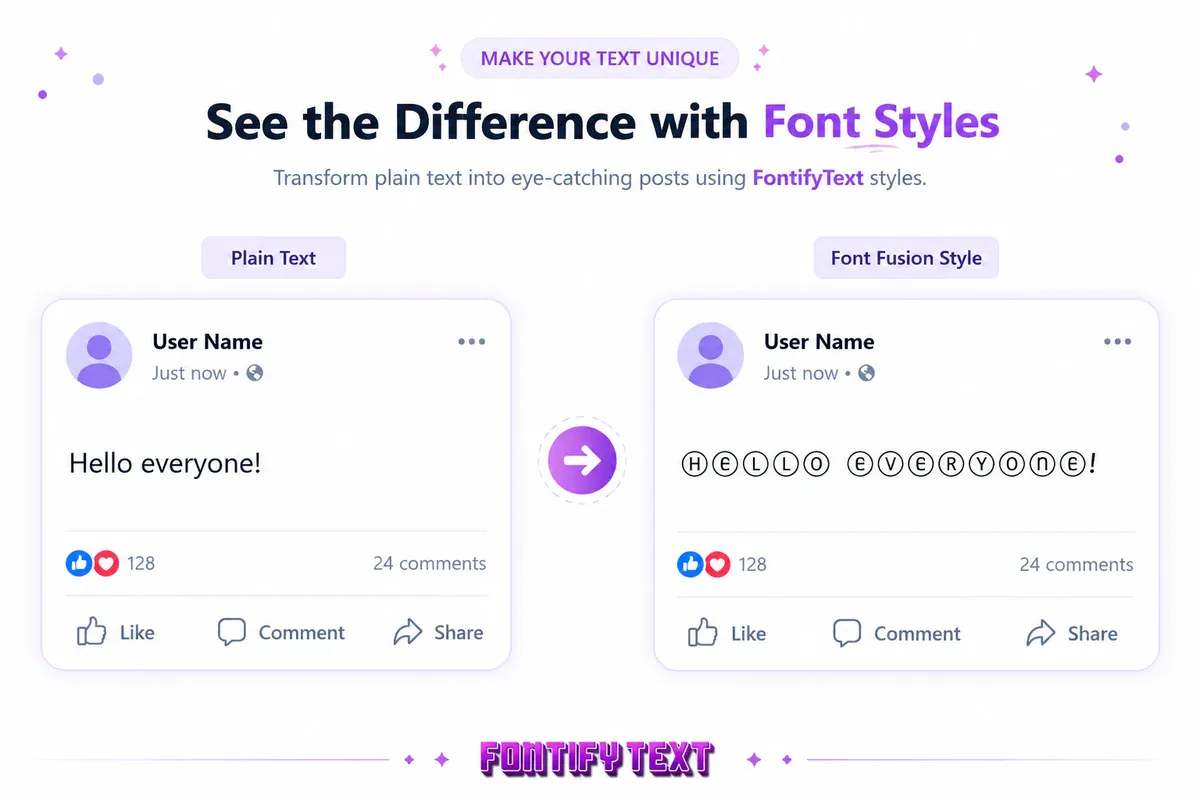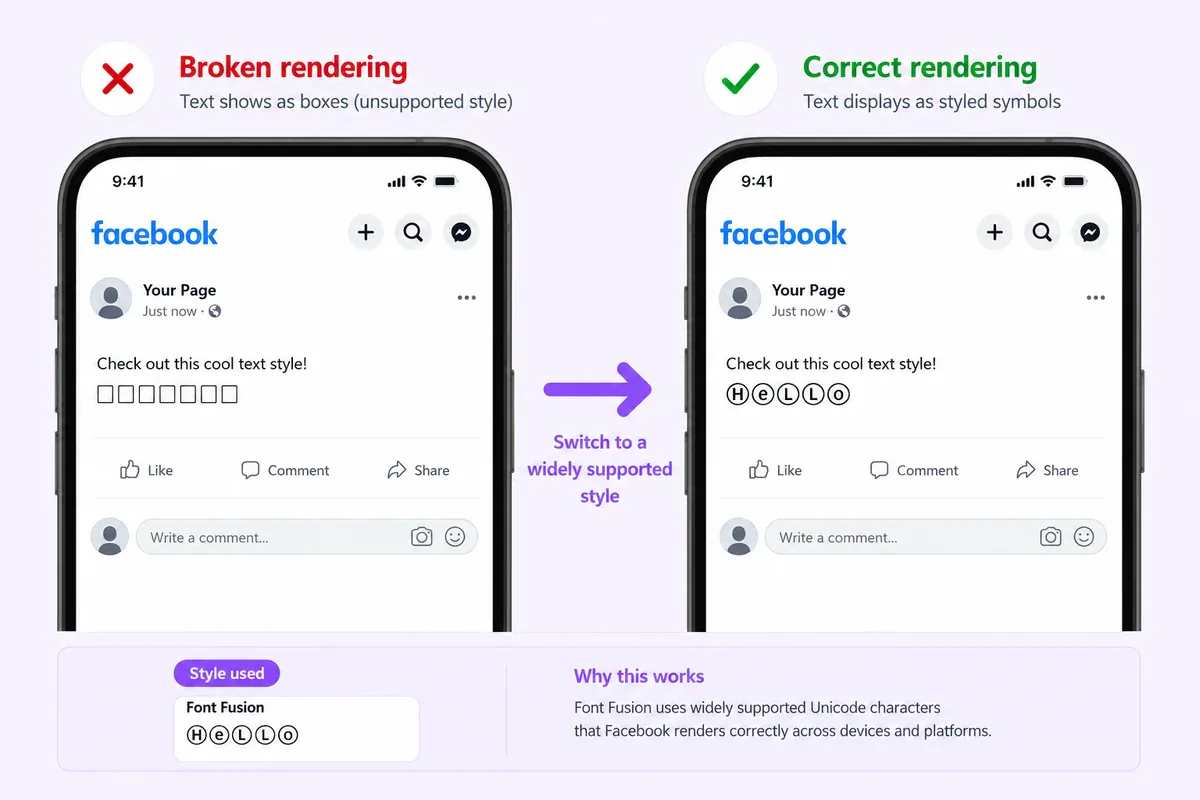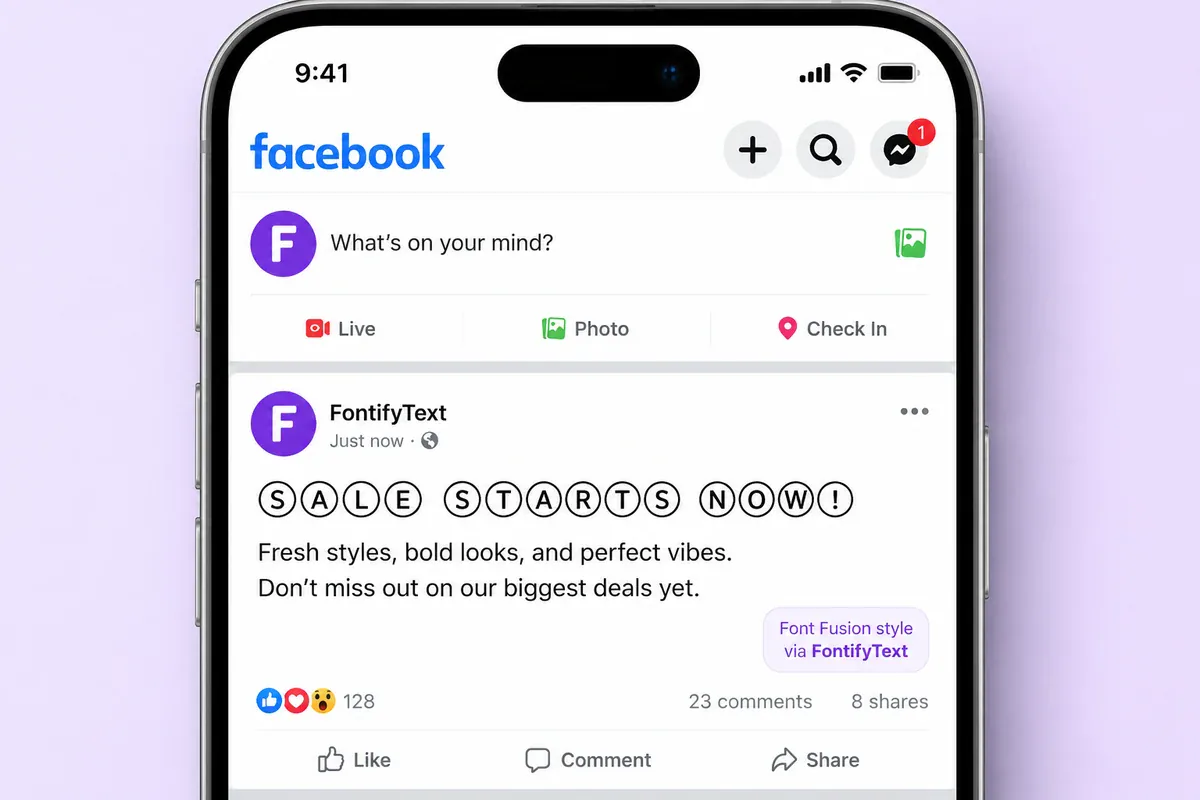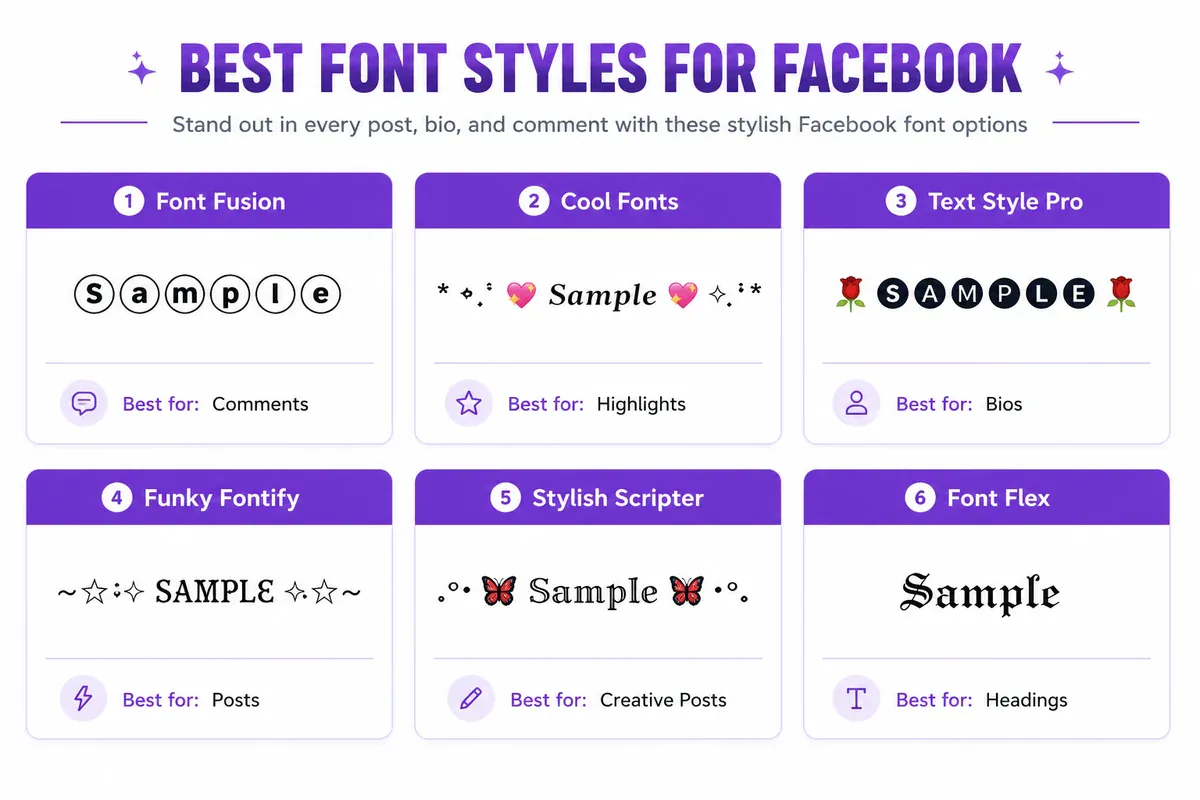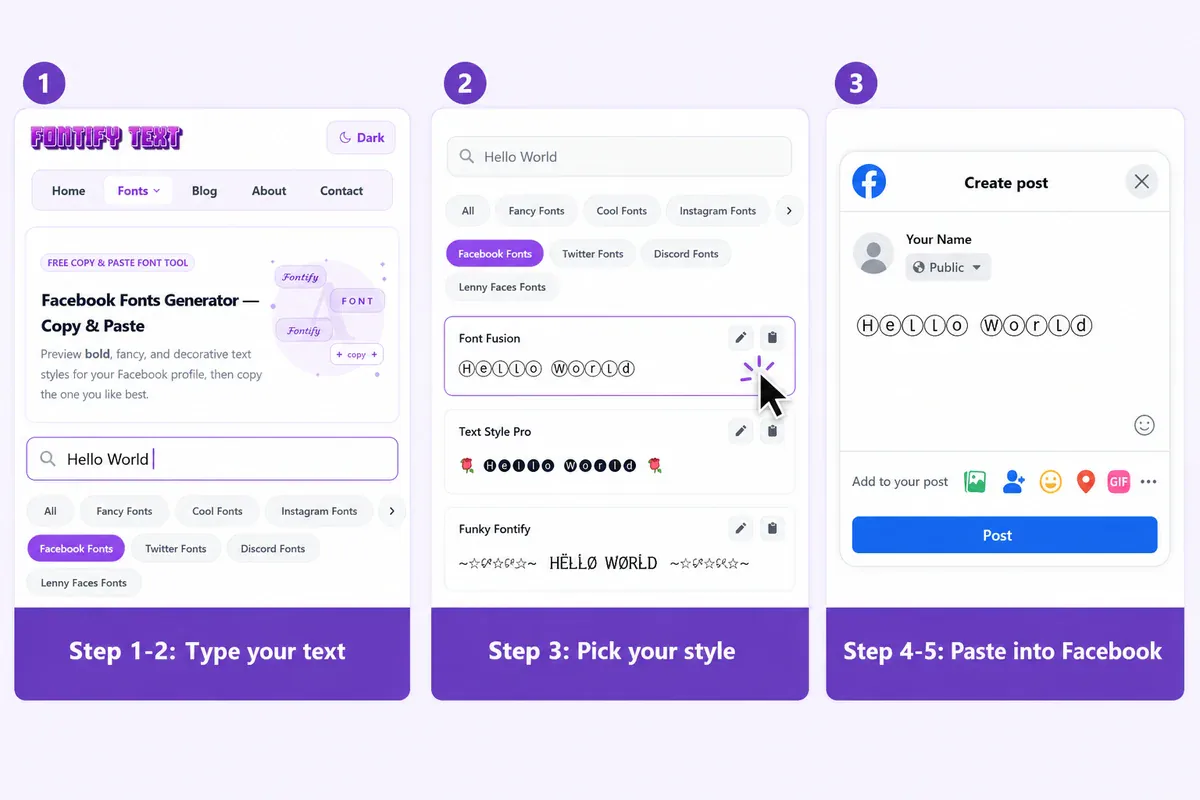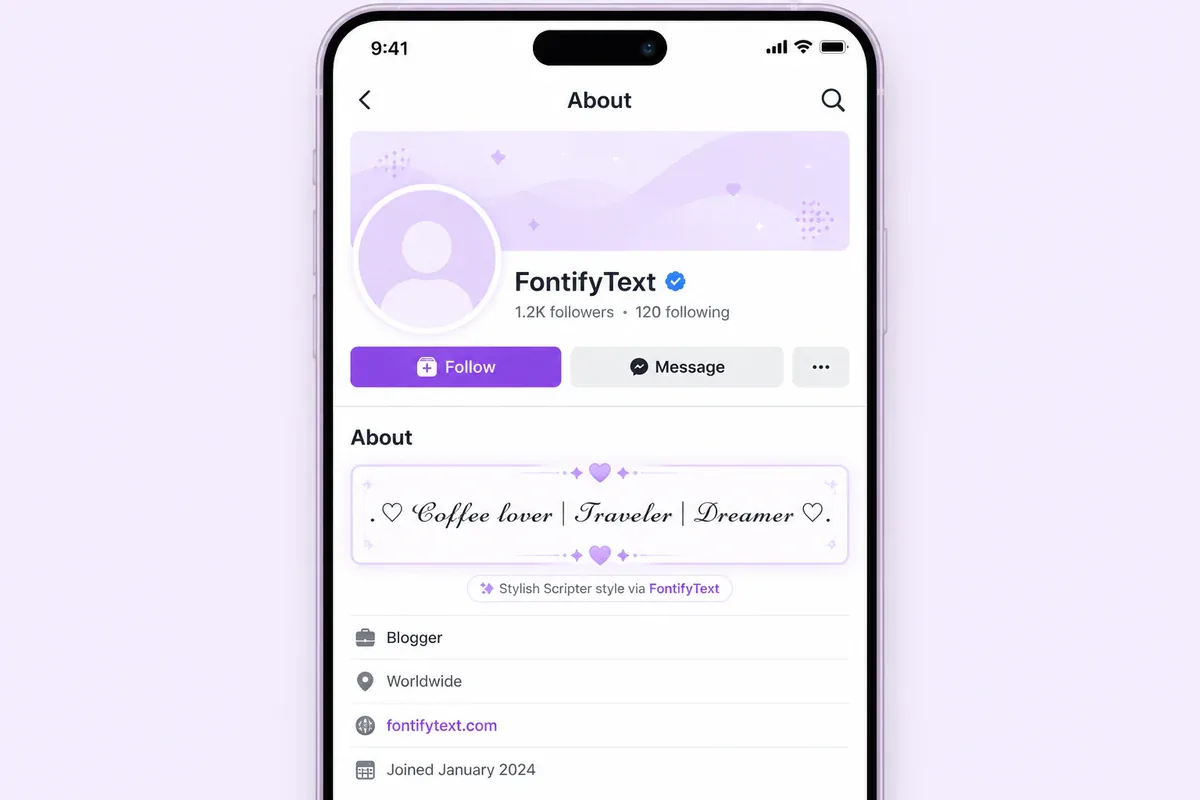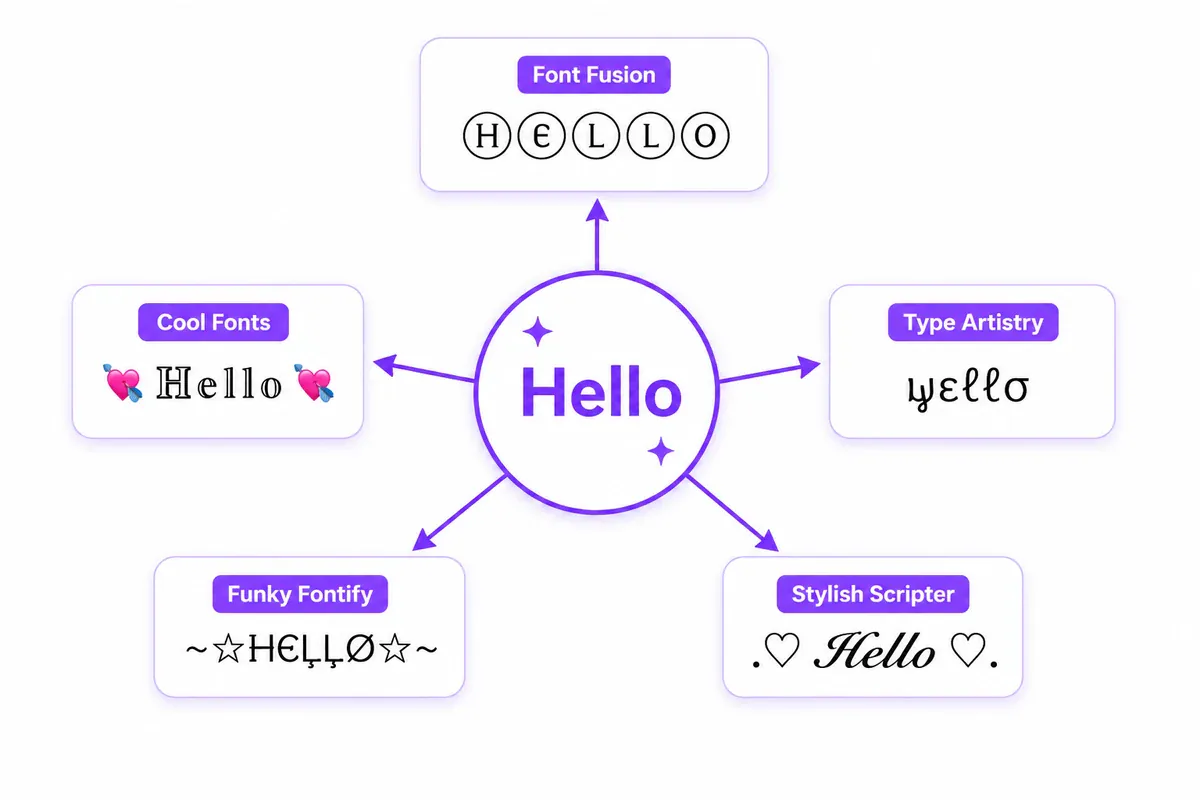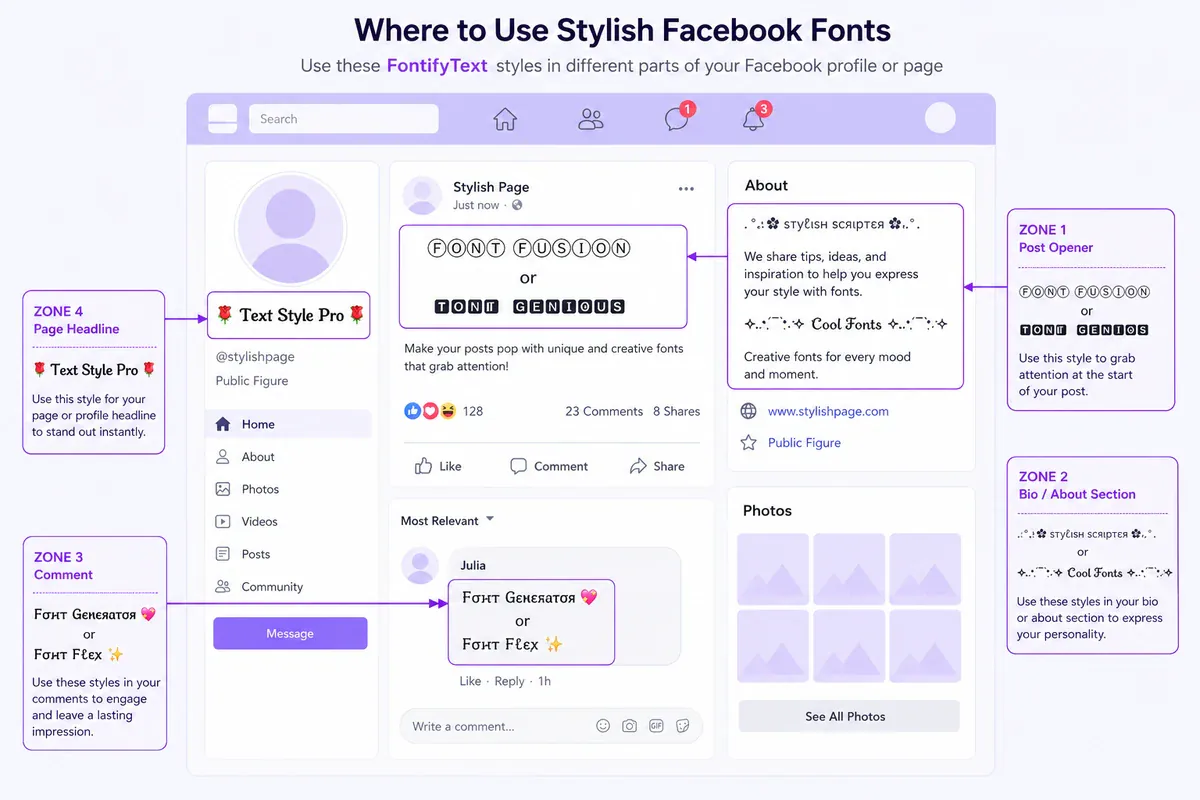
Fancy Text for Facebook — Copy & Paste Stylish Fonts
Use fancy text for Facebook posts, bios, and comments with readable Unicode styles. Learn to generate, copy, paste, and troubleshoot text for free online.
Fancy text for Facebook helps a post opener, profile bio, Page headline, or comment stand out without using an image or installing a font. Generate one readable Unicode style, copy it, paste it into Facebook, and keep important details in plain text so the result stays clear on mobile.
Fancy text for Facebook adds visual variety to the platform's standard text box. Bold, italic, and custom font controls are not built into ordinary posts, comments, or bios. Yet you may still see posts with 𝓬𝓾𝓻𝓼𝓲𝓿𝓮 𝓽𝓮𝔁𝓽, 𝕠𝕦𝕥𝕝𝕚𝕟𝕖𝕕 𝕝𝕖𝕥𝕥𝕖𝕣𝕤, or 𝗯𝗼𝗹𝗱 𝗵𝗲𝗮𝗱𝗹𝗶𝗻𝗲𝘀.
Those posts use copy-and-paste Unicode characters that resemble styled fonts. This guide explains how the technique works, where to use it, and how to avoid unreadable text or empty boxes.
Quick summary
• Fancy Facebook text uses Unicode characters rather than installed font files.
• You can generate a style, copy it, and paste it into a supported Facebook field.
• Short post openers, bios, page headlines, event descriptions, and comment hooks are strong candidates.
• Long paragraphs and accessibility-sensitive wording should stay in ordinary text.
Why Facebook Does Not Have a Built-In Font Option
Facebook's standard text fields do not provide the kind of font toolbar found in a document editor. A post or comment normally inherits the interface's own typeface and styling.
The copy-and-paste alternative relies on the Unicode Standard, which represents writing systems, symbols, emoji, and many specialized characters. Some encoded alphabets and symbols resemble bold, script, outlined, or circled lettering. Unicode's Mathematical Alphanumeric Symbols chart shows many of the bold, italic, script, Fraktur, and double-struck characters used by text generators.
Characters such as 𝔸, 𝐁, 𝒞, and are not ordinary letters with CSS styling applied. They are separate characters. That is why they can remain visually distinctive after being pasted into a plain-text field, provided the destination accepts and can display them.
What Is Fancy Text for Facebook, Really?
A Facebook font generator does not install a new typeface in Facebook. It maps ordinary letters to alternative Unicode characters and may add decorative symbols around the result.
Type hello into FontifyText and different styles can produce results such as:
• Font Fusion → Ⓗⓔⓛⓛⓞ
• Stylish Scripter → .♡ ʜᴇʟʟᴏ ♡.
• Type Artistry → ƒσηт style
• Funky Fontify → ĦЄĻĻØ
• Cool Fonts → 💘 ℍ𝕖𝕝𝕝𝕠 💘
The character 𝒽 and the ordinary character h, for example, are separate Unicode characters. Their similar shapes create the appearance of a font change even though Facebook receives plain Unicode text.
Where to Use Stylish Facebook Fonts
Not every style fits every part of Facebook. Decorative text is most useful as a short visual accent rather than a replacement for all your writing.
Facebook Posts and Status Updates
A styled first line can separate the opener from the body of a post. Clean circled, block, or bold-looking styles are usually easier to scan than heavily decorated alternatives.
Good options for post openers: Font Fusion (Ⓛⓘⓚⓔ ⓣⓗⓘⓢ), Font Genius (🅻🅸🅺🅴 🆃🅷🅸🆂), and Text Style Pro.
Keep the rest of a long post in normal text. Once the styled line has established a hierarchy, ordinary characters make the details quicker to read. For cleaner headline options, compare the Bold Fonts generator.
Facebook Bios and About Sections
A short styled phrase can add personality to a bio or About section without redesigning the whole profile.
Good options for bios: Stylish Scripter (.♡ 𝓛𝓲𝓴𝓮 𝓽𝓱𝓲𝓼 ♡.), Cool Fonts, and Font Flex. The aesthetic font guide offers more ideas for soft, Y2K, vaporwave, and cottagecore-inspired profile text. Check every result on your own profile because field rules and rendering can change.
Facebook Comments
Comments are short, so one styled word or phrase can create a useful visual anchor. Bubble, small-cap, or light script styles tend to remain readable. Try the Bubble Fonts generator for circled letters. Dense gothic or glitch text makes more sense only when it matches the conversation.
Decorative Unicode can give a Facebook post, bio, group name, or Page headline a clear visual accent without installing anything. Keep the styled portion short, leave essential information in ordinary text, and test the result on mobile before publishing.